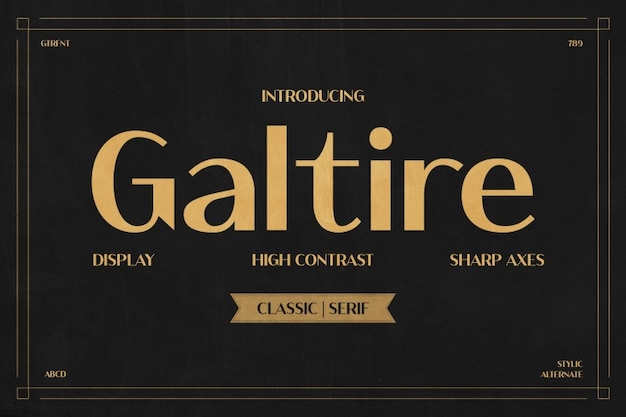
Galtire Font
"Galtire" font exudes timeless elegance and style, embodying classic typographic sophistication. Each letter is meticulously crafted with refined details, evoking a sense of grace and prestige. Perfect for upscale branding, invitations, and editorial designs, "Galtire" adds a touch of timeless sophistication to any project, making a lasting impression with its classic charm and elegant demeanor.